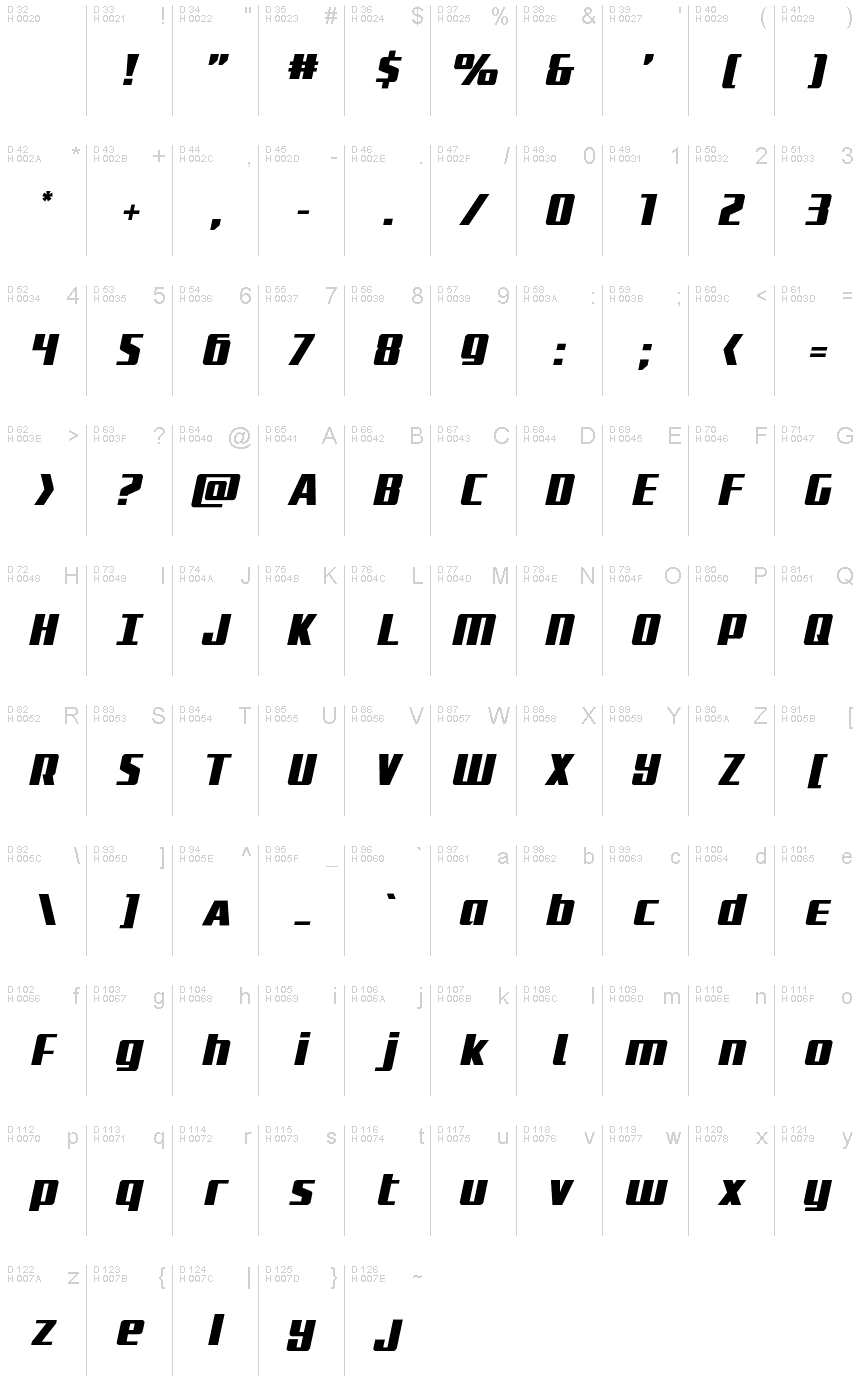
Subadai Baan Spaced Italic
Subadai Baan Spaced Italic is a futuristic display font designed by Daniel Zadorozny. Its bold weight and techno style make it perfect for projects that require a strong, modern look, such as tech blogs, gaming websites, and science fiction magazines. The spaced italic design adds a touch of uniqueness to your designs, making them stand out from the crowd. Subadai Baan Spaced Italic is versatile enough to be used in various formats such as logos, headlines or titles in posters or brochures. Get creative with this font family and elevate your designs to the next level!